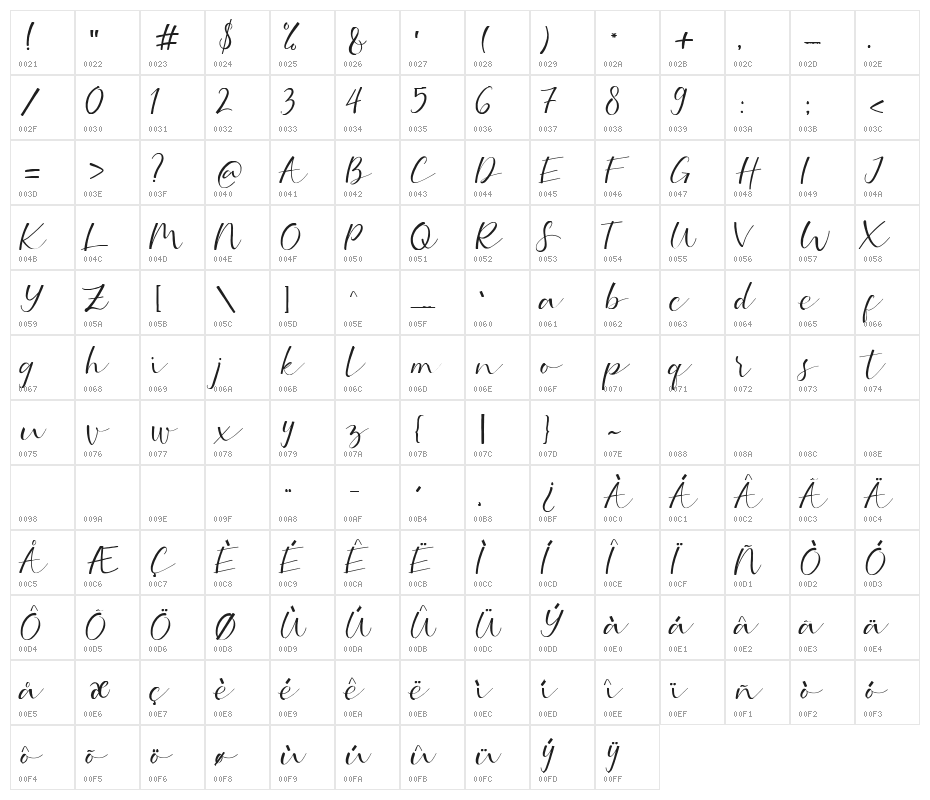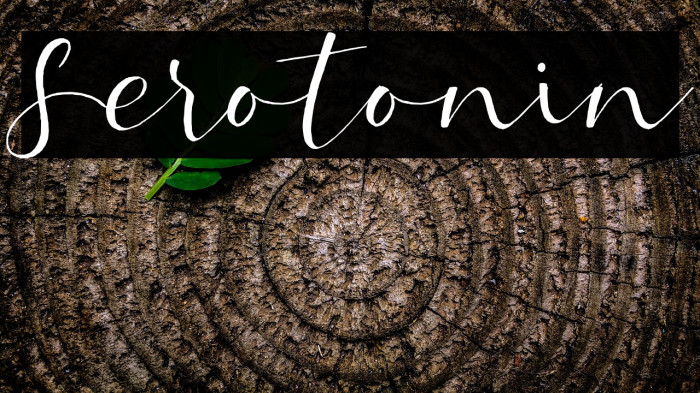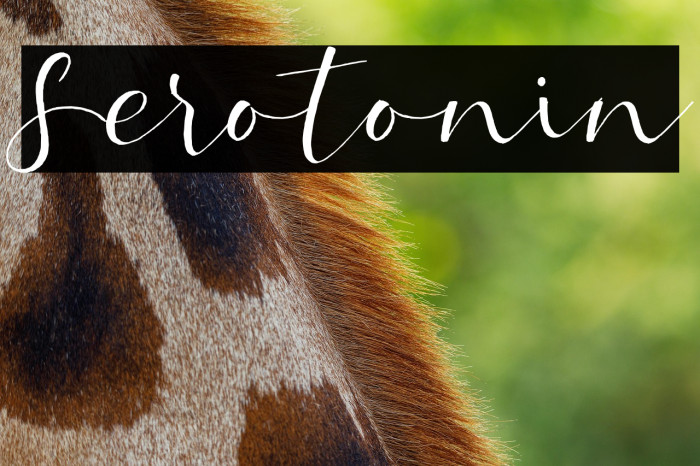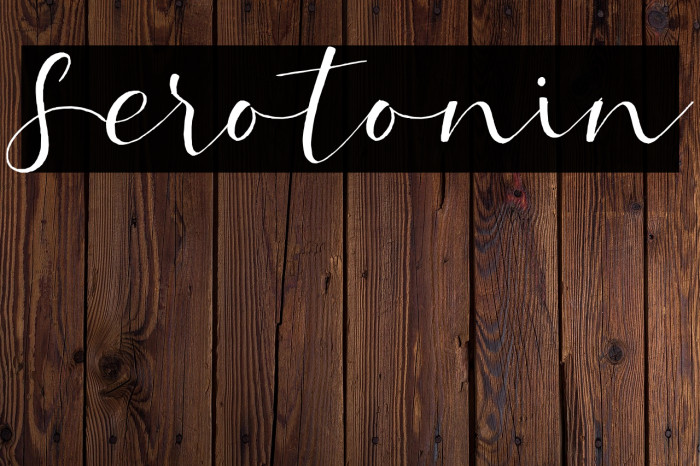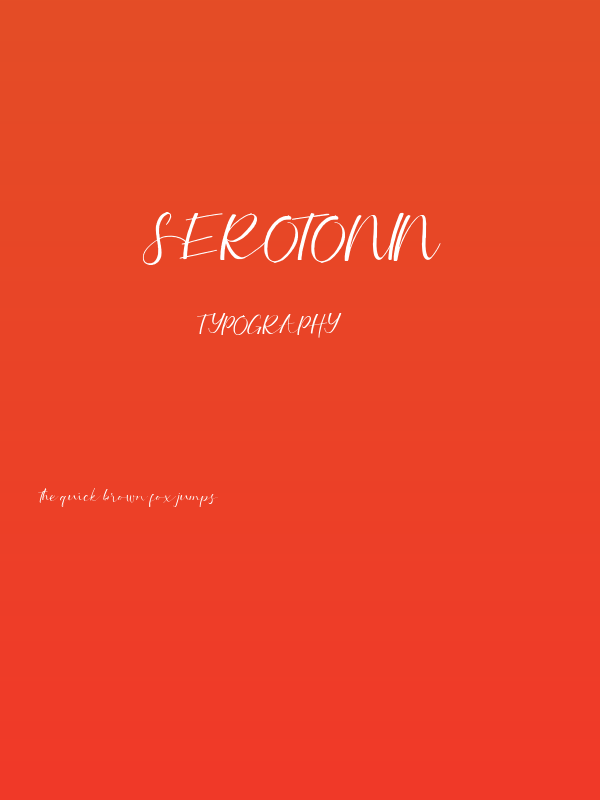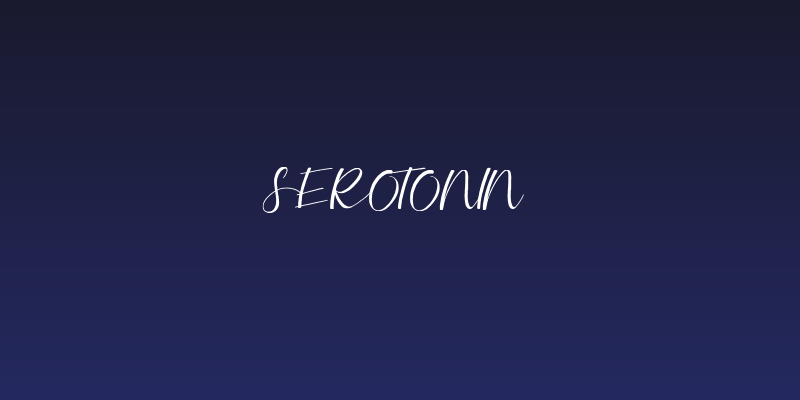
Serotonin Font
Serotonin Description
This elegant script font features a fluid and graceful style, characterized by its smooth, flowing lines and a handwritten appearance. The uppercase letters are slightly more formal, with a consistent slant and rounded edges, while the lowercase letters maintain a casual, yet sophisticated look. The numerals and special characters complement the overall design, ensuring versatility across various applications. The font's strokes vary in thickness, adding a dynamic and lively feel to the text. Its aesthetic appeal makes it suitable for projects that require a personal touch or a sense of elegance.
| Use Case | Logos, Invitations, Personal stationery |
| Proposed Projects | Ideal for wedding invitations, greeting cards, branding, and personal stationery. |